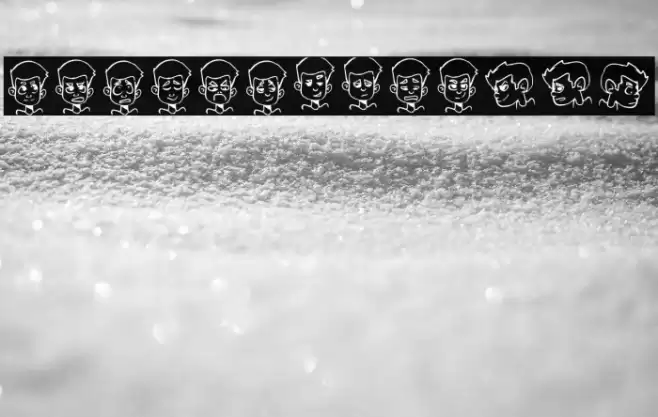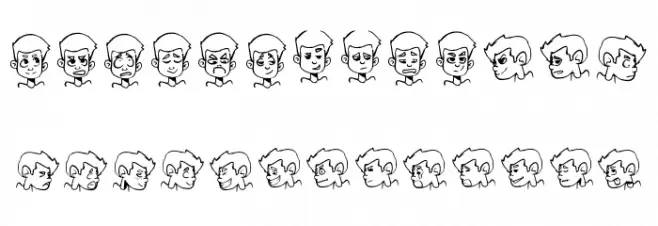
Expressions Regular Font
Expressions Regular Description
A decorative set of illustrated cartoon faces showing a wide range of emotions and head angles, drawn with clean, expressive black lines and consistent character style.
Expressive cartoon faces font with varied emotions and angles from Dingbats fonts.
- Proposed Projects: Comics, educational materials, children's books, playful branding, emotion charts, stickers, and character-based infographics.
- Overall Style: Playful, Decorative, Cartoonish
- Use Case: Illustrative headlines, comics, educational visuals, branding for kids’ products.